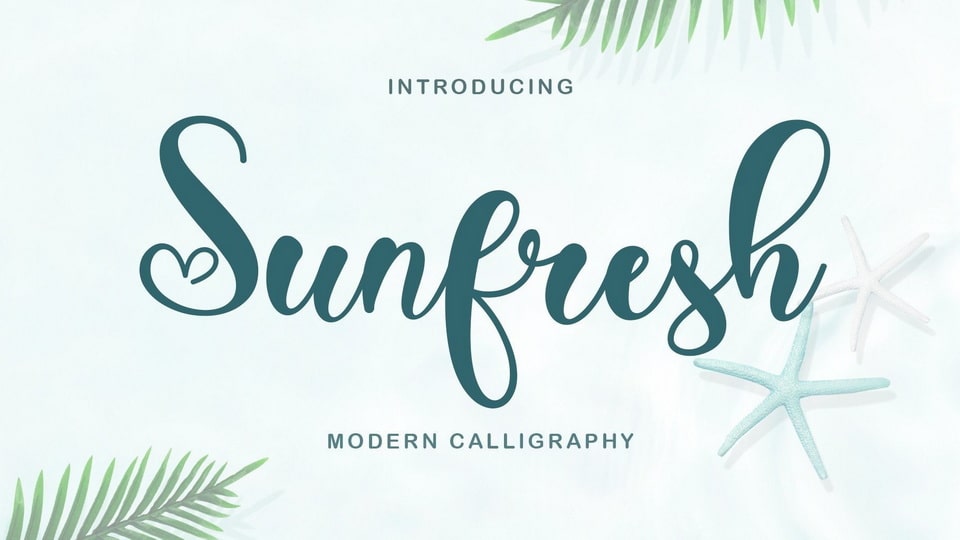
Feb 5, 2025Script & HandwrittenSunfresh Font Sunfresh is a beautiful and delightful script font. Its bright and fresh character is perfect for your summer projects, greeting cards, holiday promos, blogs, or anything your soul desires. Font DetailsDesigned by: Selvia DesignWebsiteLicense: Free for personal use Download Sunfresh FontFile size: 78.14 KBCreated: February 16, 2025Updated: February 16, 2025 Download Explore similar fonts Aaksaraan Rania Font Arthur Meridian Font Rhetorical Flourish Font Always in the Star Font Sofiya Wiyona Font Gelato Vanilla Font # Calligraphy# Handwriting# Pretty# Wedding More fonts by Selvia DesignValentine Everyday FontLottie FontBest Spring FontVacation Monogram FontCold Christmas FontMalitha FontHoney Spring FontGrateful Autumn Font